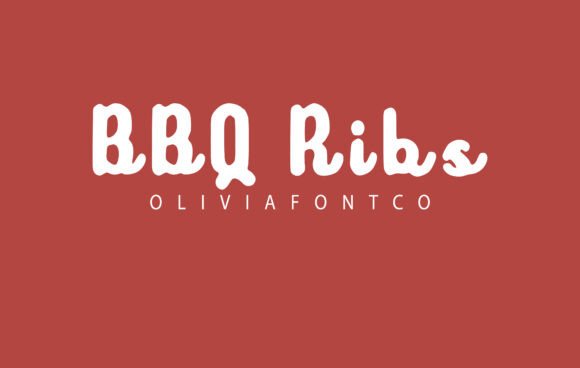
Introducing BBQ Ribs Font: The Perfect Handwritten Font for Your Creative Projects
Are you looking for a font that can add a touch of romance and authenticity to your creative projects? Look no further than BBQ Ribs Font, a beautifully designed handwritten font that is sure to become a true favorite. With its legible and versatile design, this font is perfect for a wide range of applications, from magazine headlines and social media posts to branding, wedding invitations, and more.
What Makes BBQ Ribs Font So Special?
BBQ Ribs Font is an authentic handwritten font that has been expertly designed to bring a romantic touch to your creative projects. Its unique and elegant design makes it perfect for a variety of uses, from titles and body text to headlines and captions. Whether you’re looking to create a beautiful wedding invitation, a stylish social media post, or a professional-looking brand identity, this font is sure to impress.
One of the standout features of BBQ Ribs Font is its legibility. Despite its handwritten design, this font is incredibly easy to read, making it perfect for use as both title and body text. This versatility makes it an excellent choice for a wide range of creative projects, from print materials like brochures and flyers to digital applications like social media posts and website content.
The Perfect Font for Creative Projects
So why choose BBQ Ribs Font for your creative projects? Here are just a few reasons why this font stands out:
- Authentic Handwritten Design: BBQ Ribs Font features an authentic handwritten design that adds a touch of romance and personality to your creative projects.
- Legible and Versatile: This font is incredibly legible and versatile, making it perfect for use as both title and body text.
- Perfect for a Wide Range of Applications: From magazine headlines and social media posts to branding, wedding invitations, and more, BBQ Ribs Font is the perfect choice for a wide range of creative projects.
How to Use BBQ Ribs Font in Your Creative Projects
BBQ Ribs Font is incredibly easy to use and can be applied to a wide range of creative projects. Here are just a few ideas to get you started:
- Magazine Headlines: Use BBQ Ribs Font to create eye-catching headlines for your magazine or publication.
- Social Media Posts: Add a touch of personality to your social media posts with this beautiful handwritten font.
- Branding: Use BBQ Ribs Font to create a unique and memorable brand identity for your business or organization.
- Wedding Invitations: Create beautiful and elegant wedding invitations with this romantic handwritten font.
- Cards and Stationery: Use BBQ Ribs Font to create personalized cards and stationery for any occasion.
Tips for Getting the Most Out of BBQ Ribs Font
Here are a few tips for getting the most out of BBQ Ribs Font:
- Experiment with Different Sizes and Colors: Don’t be afraid to experiment with different sizes and colors to find the perfect look for your creative project.
- Pair with Other Fonts: BBQ Ribs Font pairs perfectly with other fonts, so don’t be afraid to try pairing it with a bold or italic font to add some contrast.
- Use it Consistently: For maximum impact, use BBQ Ribs Font consistently throughout your creative project.
In conclusion, BBQ Ribs Font is a beautiful and versatile handwritten font that is perfect for a wide range of creative projects. With its authentic design, legibility, and versatility, this font is sure to become a true favorite. Whether you’re looking to create a stunning magazine headline, a stylish social media post, or a professional-looking brand identity, BBQ Ribs Font is the perfect choice.
- Is BBQ Ribs Font easy to read?: Yes, BBQ Ribs Font is incredibly legible, making it perfect for use as both title and body text.